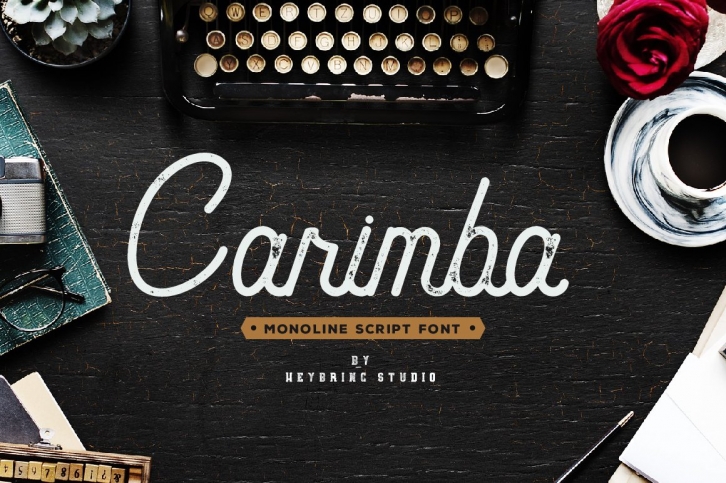
Introducing Carimba, a monoline script font inspired by classic label design. Works great applied to logos, labels, prints, quotes, magazine headers, clothing, you can use it for your Instagram post to add vintage and hipster vibes. So, what are you waiting for, buy now and start playing around with Carimba!
• Carimba Script
• Carimba Script Rough